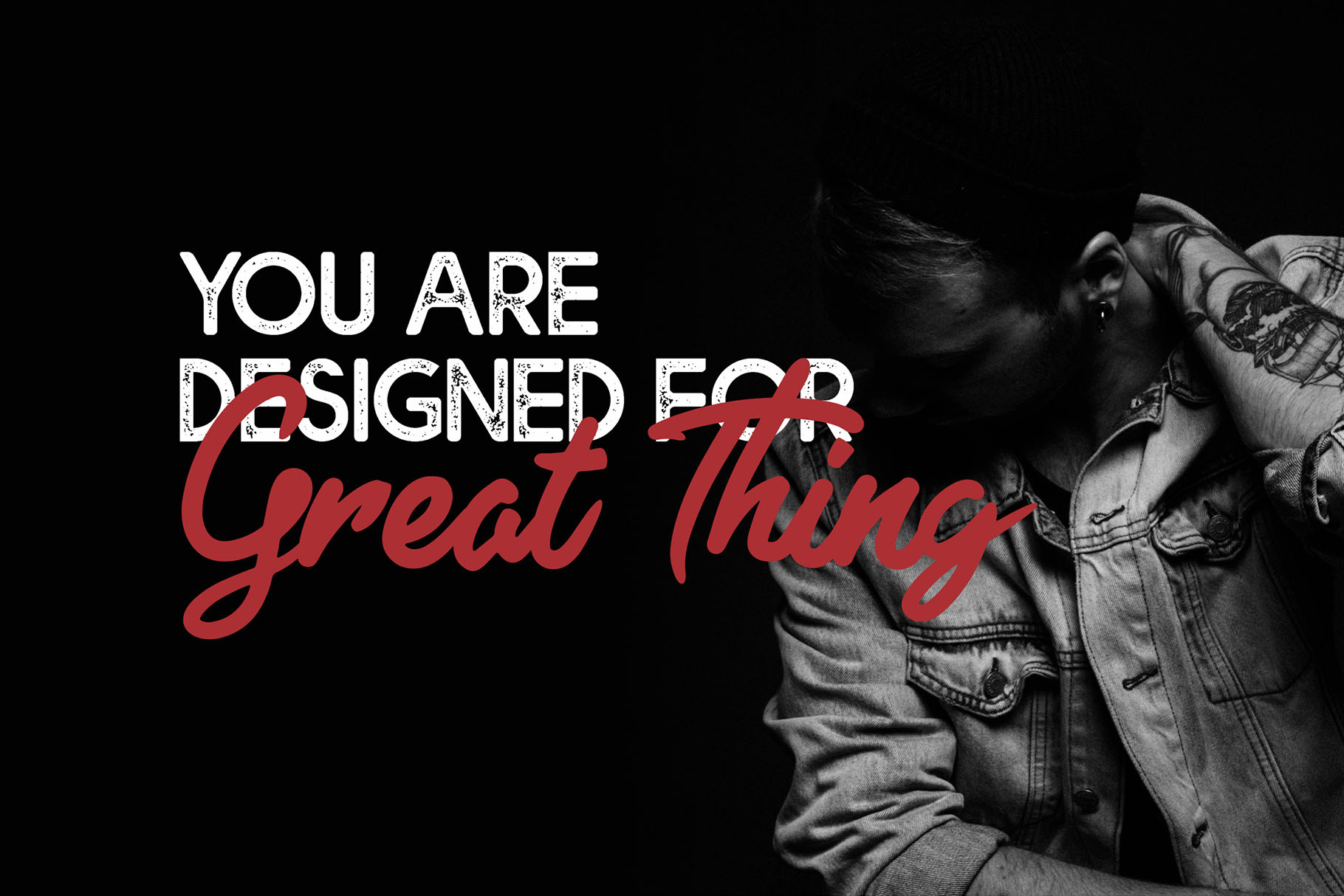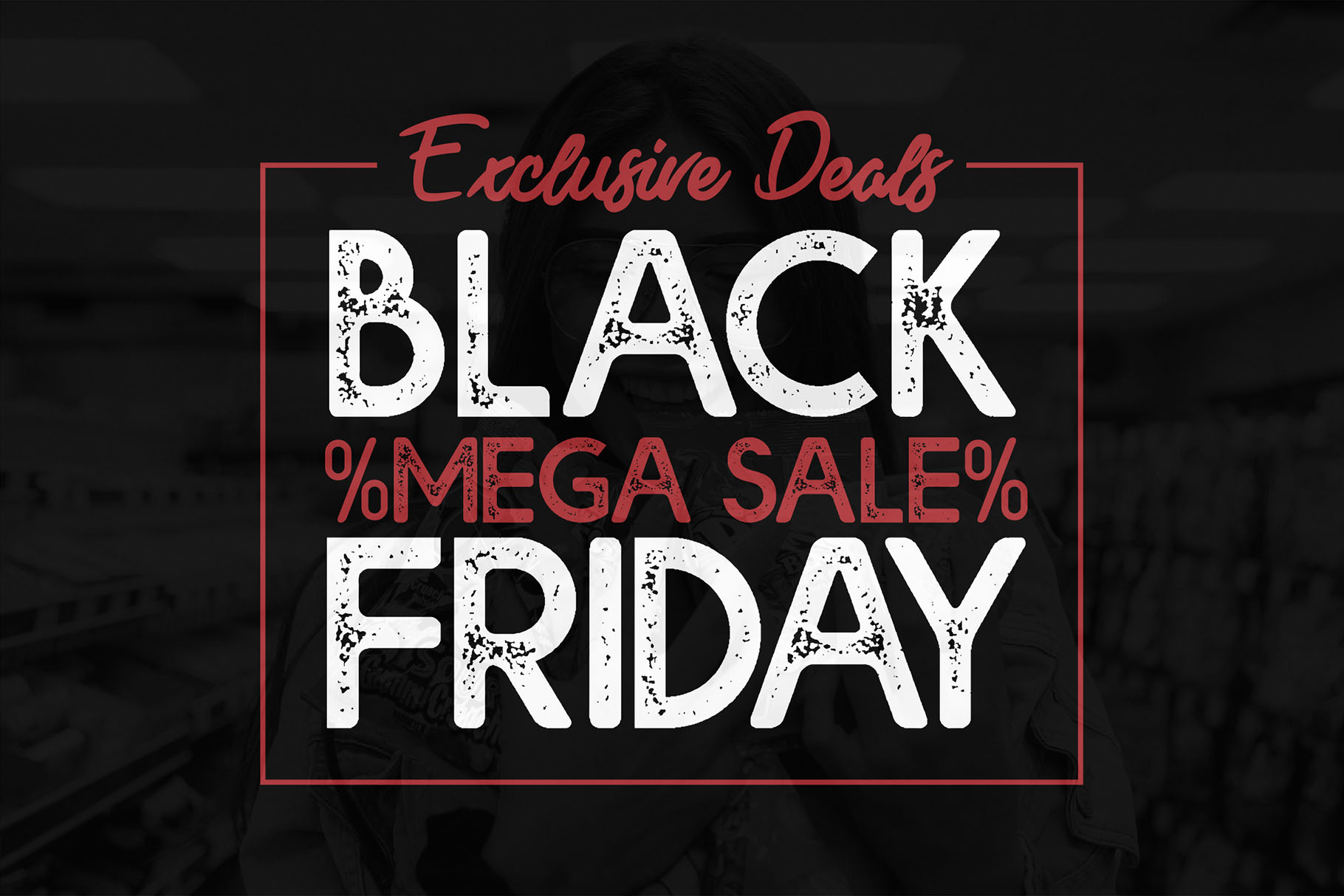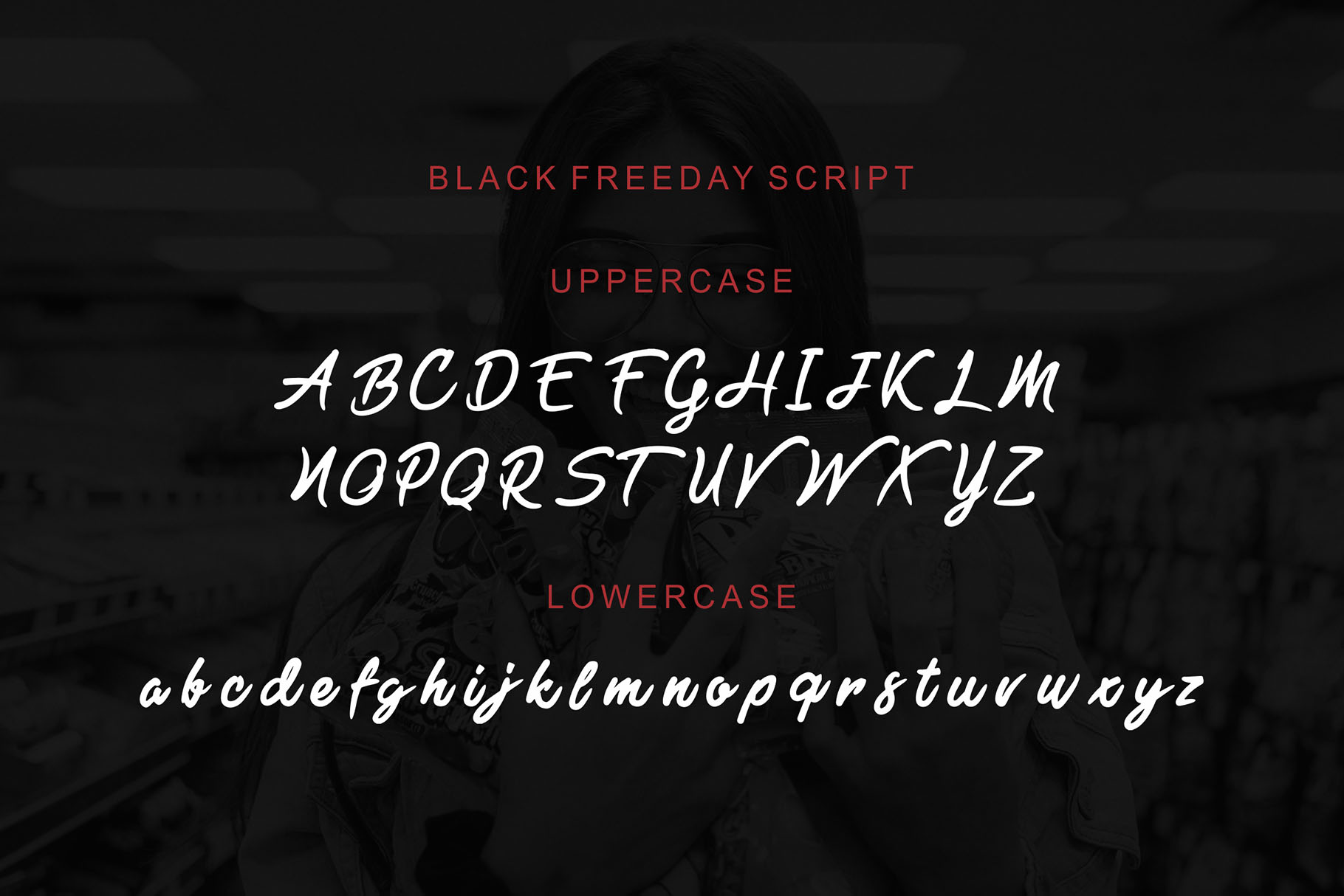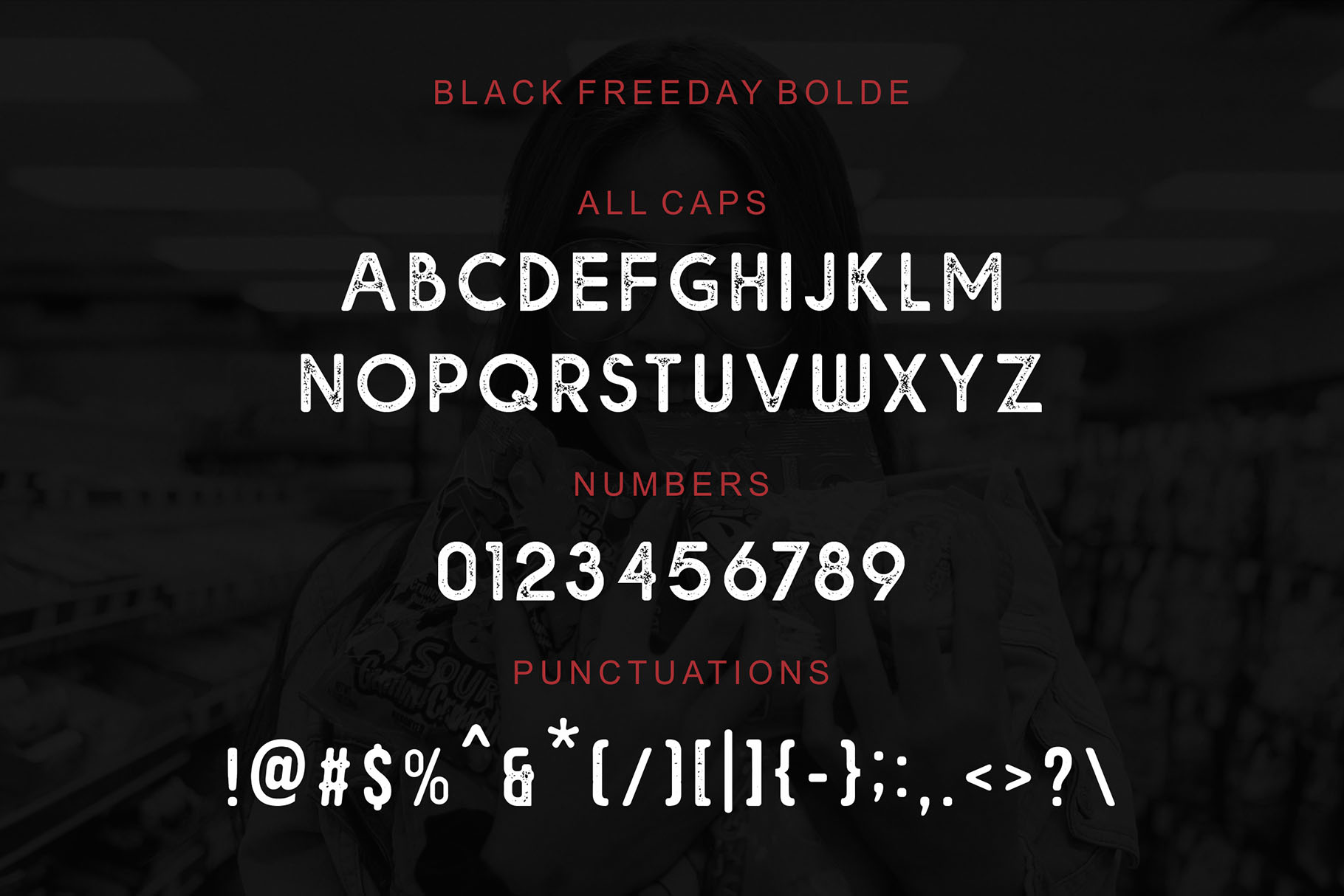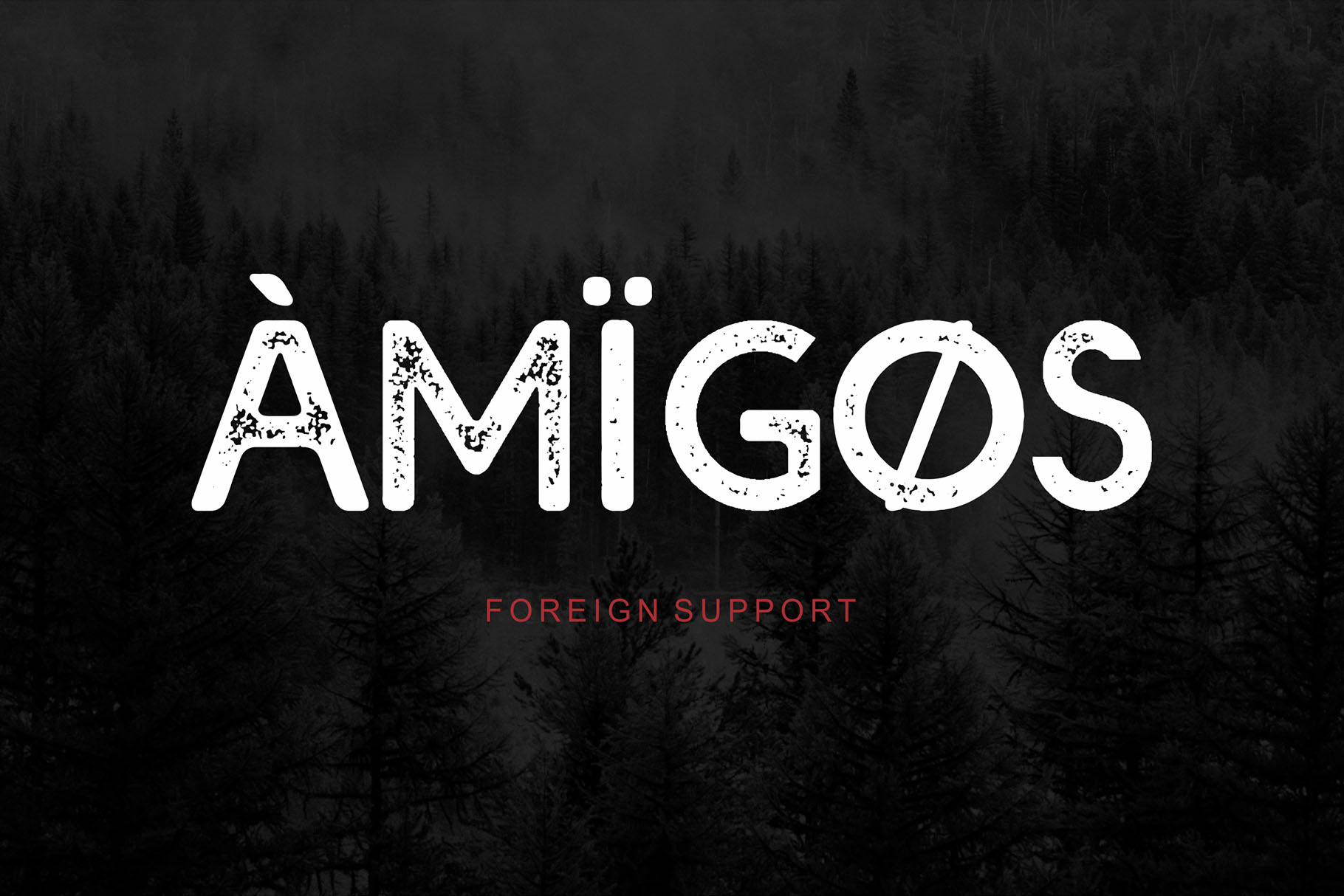
The Black Freeday is a powerfull font duo inspired by the excitement of black friday moments. It included 2 styles that can make your design more unique.
- Numbers and Punctuation Marks
- Support Multilanguage